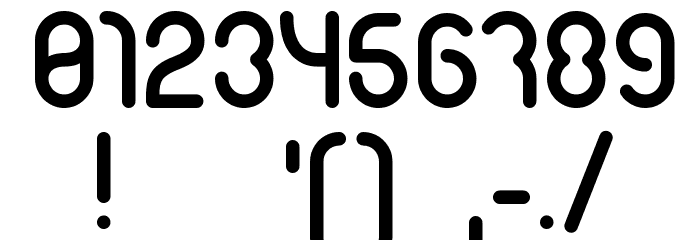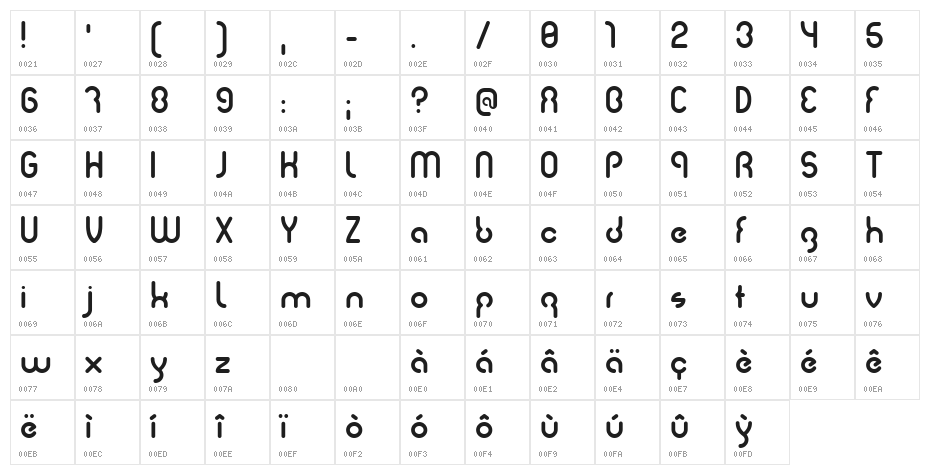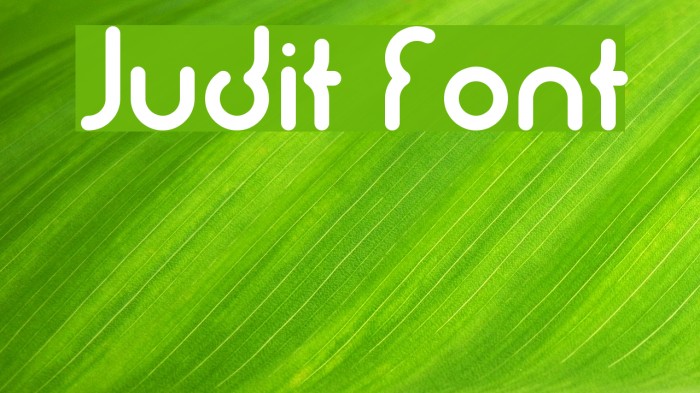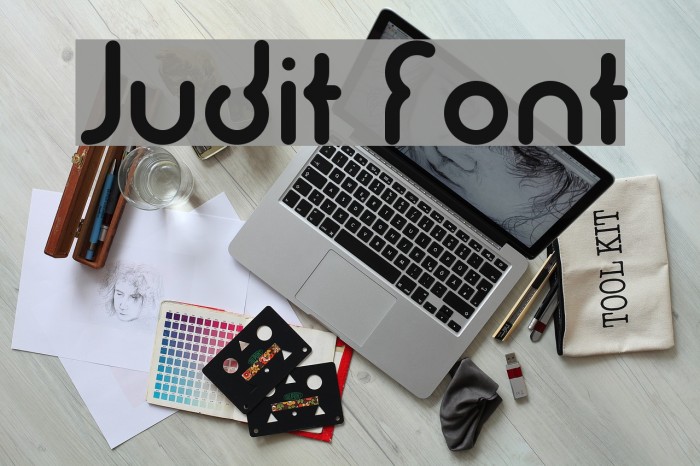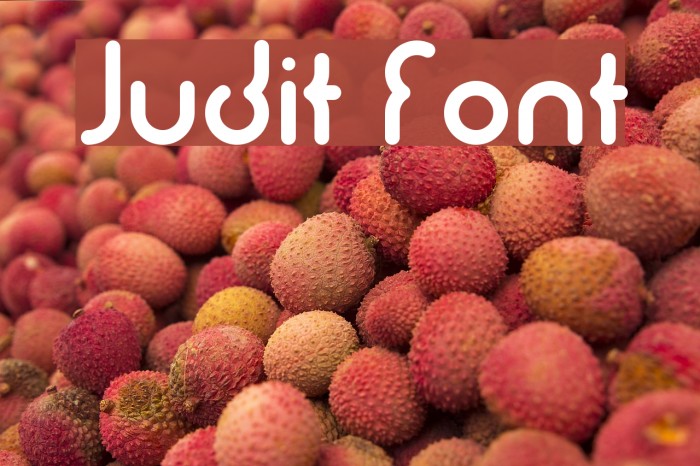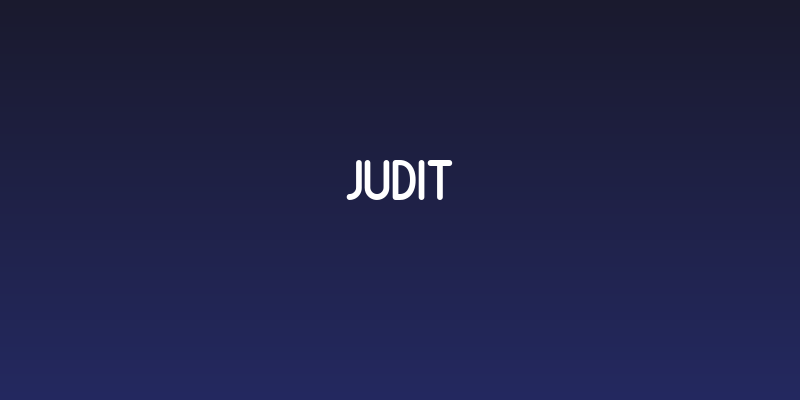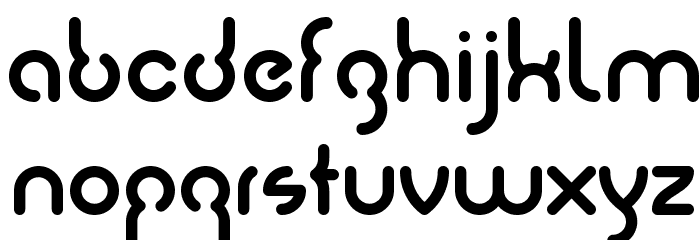
Judit Font
Judit Description
This font features a unique, rounded style with a playful and modern aesthetic. The characters are bold and have a consistent stroke width, giving them a uniform appearance. The rounded edges and smooth curves create a friendly and approachable look. The uppercase and lowercase letters maintain a cohesive design, with the lowercase letters mirroring the playful nature of the uppercase. Numbers and special characters follow the same rounded and bold style, ensuring consistency throughout. This font is ideal for projects that require a modern and fun touch, such as children's books, playful branding, or creative advertising.
| Proposed Projects | Children's books, playful branding, creative advertising, modern posters. |